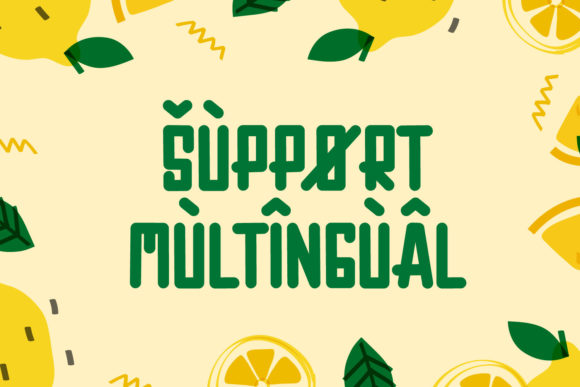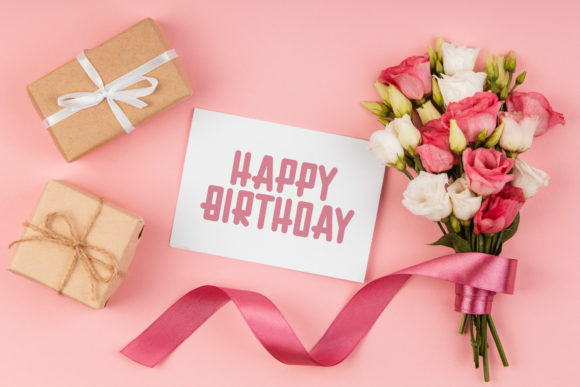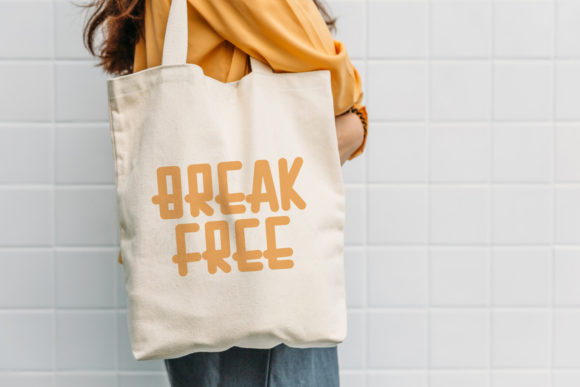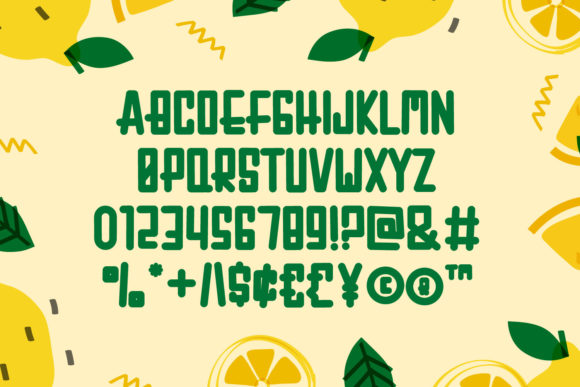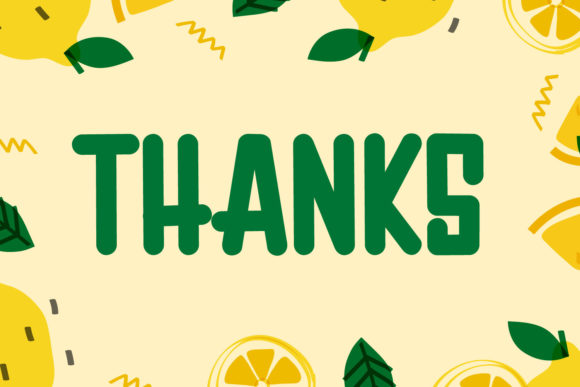
Introducing Florida Font: The Perfect Addition to Your Design Arsenal
Are you tired of using the same old fonts in your designs? Look no further than Florida Font, a gorgeous and fresh display font that’s sure to take your creations to the next level. With its well-rounded and playful characters, Florida Font is the perfect choice for designers and crafters looking to add a touch of personality to their work.
What Makes Florida Font So Special?
Florida Font is a highly versatile font that’s designed to fit a wide range of creations. Whether you’re working on labels, name tags, magazines, social media posts, marketing materials, or anything else, Florida Font is the perfect choice. Its unique blend of playfulness and sophistication makes it ideal for designers who want to add a bit of flair to their work.
Key Features of Florida Font
• Well-rounded characters: Florida Font features characters that are carefully crafted to be both playful and elegant. Each letter is designed to be highly legible, making it perfect for use in a variety of contexts.
• Playful vibe: Florida Font has a fun and carefree vibe that’s perfect for designers who want to add a bit of personality to their work. Whether you’re creating a social media post or a marketing brochure, Florida Font is sure to make your design stand out.
• Highly versatile: Florida Font can be used in a wide range of contexts, from labels and name tags to magazines and marketing materials. Its versatility makes it a great addition to any designer’s font library.
How to Use Florida Font in Your Designs
Florida Font is incredibly easy to use, and can be incorporated into your designs in a variety of ways. Here are a few ideas to get you started:
• Labels and name tags: Florida Font is perfect for creating eye-catching labels and name tags. Try using it to add a personal touch to party favors, gifts, or marketing materials.
• Social media posts: Florida Font is a great choice for social media posts, where it can help you stand out from the crowd. Try using it to create engaging and shareable content that will help you build your brand.
• Marketing materials: Florida Font can add a touch of personality to your marketing materials, from brochures and flyers to business cards and letterheads.
• Magazines and publications: Florida Font is a great choice for magazine and publication design, where it can add a touch of elegance and sophistication to your layouts.
Why Designers and Crafters Love Florida Font
Florida Font has quickly become a favorite among designers and crafters, and it’s easy to see why. Here are just a few reasons why:
• Easy to read: Florida Font is highly legible, making it perfect for use in a variety of contexts.
• Highly versatile: Florida Font can be used in a wide range of contexts, from labels and name tags to magazines and marketing materials.
• Playful vibe: Florida Font has a fun and carefree vibe that’s perfect for designers who want to add a bit of personality to their work.
Florida Font is a gorgeous and fresh display font that’s sure to take your designs to the next level. With its well-rounded and playful characters, highly versatile design, and easy-to-read format, Florida Font is the perfect choice for designers and crafters looking to add a touch of personality to their work. Try it today and see the difference it can make!